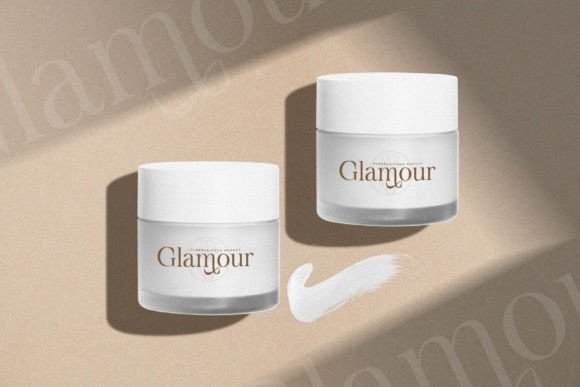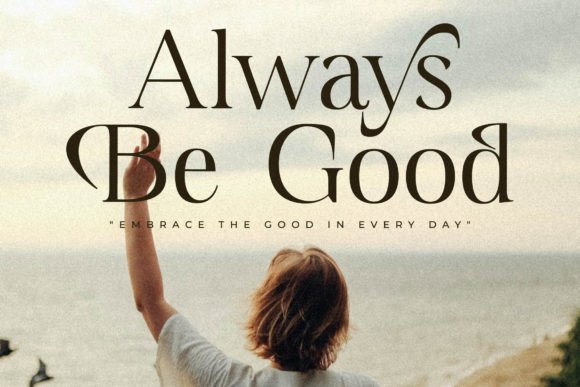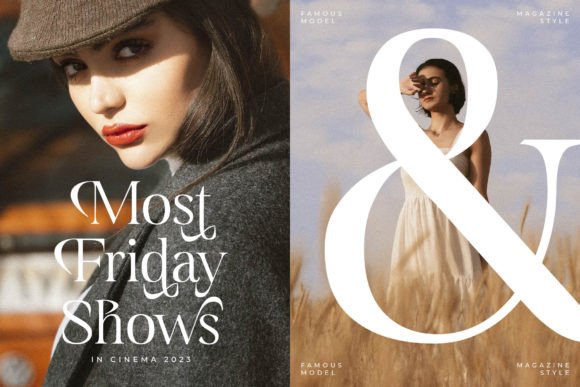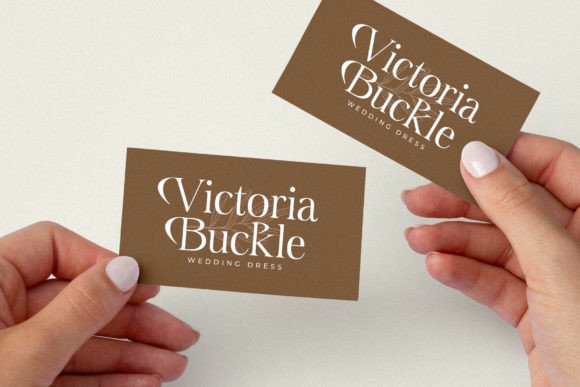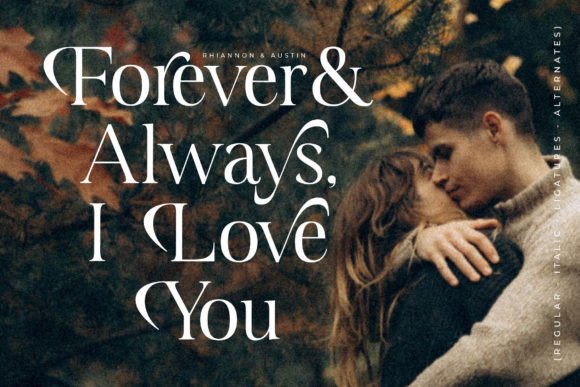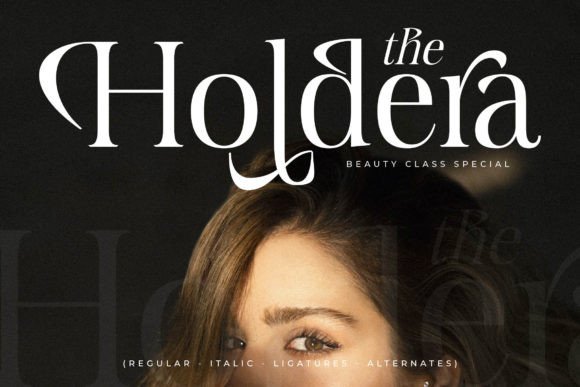
Introducing Bayoreh Font: Elevate Your Designs with Elegance and Boldness
Are you on the hunt for a font that exudes elegance, sophistication, and versatility? Look no further than Bayoreh Font! This stunning serif font is making waves in the design community, and for good reason. With its unique blend of boldness and refinement, Bayoreh is the perfect choice for designers and crafters looking to elevate their projects.
The Perfect Blend of Elegance and Boldness
Bayoreh Font is a masterclass in balance and contrast. Its elegant lines and curves are perfectly offset by its bold and confident strokes, creating a font that is both eye-catching and refined. Whether you’re looking to create gorgeous wedding invitations, beautiful stationery art, or eye-catching social media posts, Bayoreh has got you covered.
One of the things that sets Bayoreh apart from other fonts is its incredible versatility. This font can be used in a wide range of projects, from:
- Signage and display ads
Whether you’re a professional designer or a crafty DIY enthusiast, Bayoreh Font is the perfect choice for anyone looking to add a touch of elegance and sophistication to their projects.
Why Choose Bayoreh Font?
So why choose Bayoreh Font over other fonts on the market? Here are just a few reasons:
- Unique and distinctive style: Bayoreh Font has a one-of-a-kind look that will set your projects apart from the crowd.
- Highly versatile: Bayoreh can be used in a wide range of projects, from formal to informal, and from digital to print.
- Elegant and sophisticated: Bayoreh exudes refinement and poise, making it perfect for projects that require a touch of luxury.
- Easy to read: Despite its boldness, Bayoreh is incredibly easy to read, making it perfect for body text and headlines.
Tips for Using Bayoreh Font
Now that you’ve fallen in love with Bayoreh Font, here are a few tips for getting the most out of this amazing font:
- Experiment with different sizes and weights: Bayoreh Font comes in a range of sizes and weights, so don’t be afraid to experiment and find the perfect combination for your project.
- Pair with complementary fonts: Bayoreh pairs beautifully with a range of other fonts, so try pairing it with a sans-serif font for a striking contrast.
- Use it to create visual hierarchy: Bayoreh’s boldness and elegance make it perfect for creating visual hierarchy in your designs.
In conclusion, Bayoreh Font is a game-changer for designers and crafters looking to elevate their projects with elegance and boldness. With its unique style, versatility, and ease of use, Bayoreh is the perfect choice for anyone looking to create stunning designs that will leave a lasting impression. So why wait? Fall in love with Bayoreh Font today and take your designs to the next level!